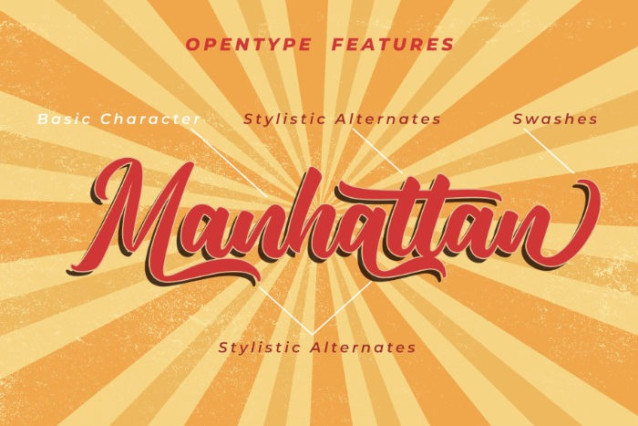
Panthera Script Font
Panthera Script Font gracefully combines the raw energy of brush strokes with an elegant twist. Its fluid lines dance across the canvas, creating a harmonious blend of authenticity and sophistication. The font boasts a curated set of alternates and ligatures, allowing you to customize your designs effortlessly.
Imagine branding projects that leave an indelible mark—Panthera is your secret weapon. Whether it graces a logo, packaging, or apparel, this font breathes life into your brand identity. Its bold strokes evoke confidence, while the subtle ligatures add a touch of finesse.
Picture a logotype that stands out in a sea of sameness. Panthera roars with individuality, making your brand unforgettable. Its versatility extends beyond digital screens; think business cards, signage, and merchandise. Each character whispers a story, inviting your audience to lean in and listen.